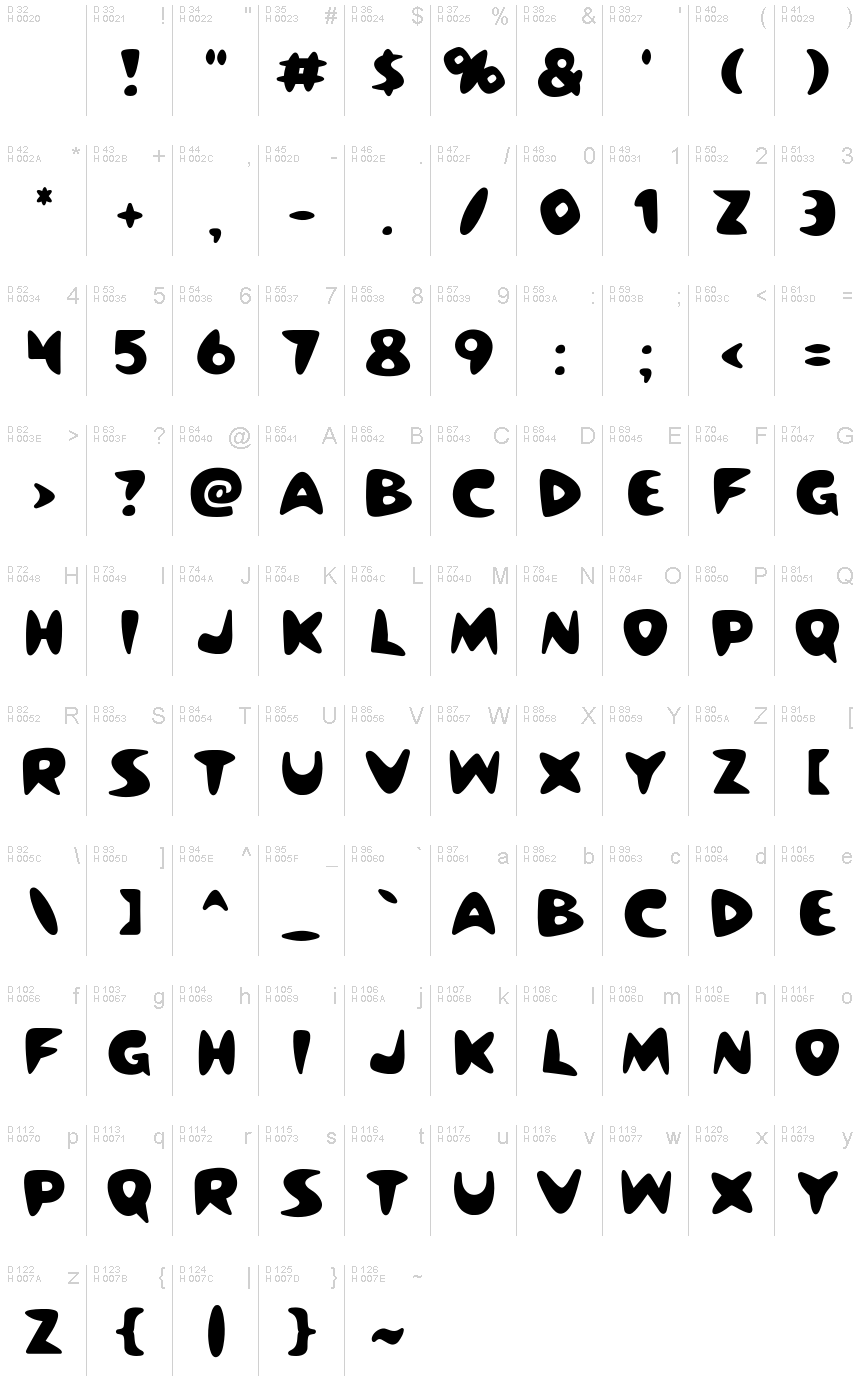
Youchat
Youchat is a captivating display font that exudes a playful and vibrant charm. Crafted by designer Khurasan, this font boasts a bold and distinctive aesthetic, with each letter embodying a unique, cartoon-inspired character. The rounded, organic shapes and dynamic curves create a sense of movement and energy, while the thicker strokes lend an unmistakable presence to the overall design. Youchat's distinctive style evokes a sense of playfulness and approachability, making it an ideal choice for projects seeking to convey a lighthearted and whimsical tone.
Youchat's versatility shines through its ability to seamlessly integrate into a variety of design contexts. Its bold and attention-grabbing presence makes it a perfect fit for headlines, logos, and branding materials, where it can effectively capture the audience's attention and leave a lasting impression. Additionally, the font's playful charm lends itself well to children's illustrations, toy packaging, and other playful applications, adding a touch of fun and personality to the overall design.